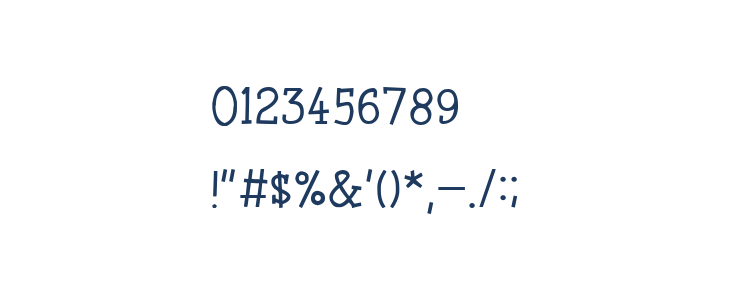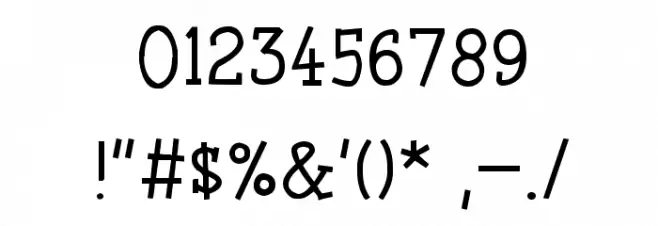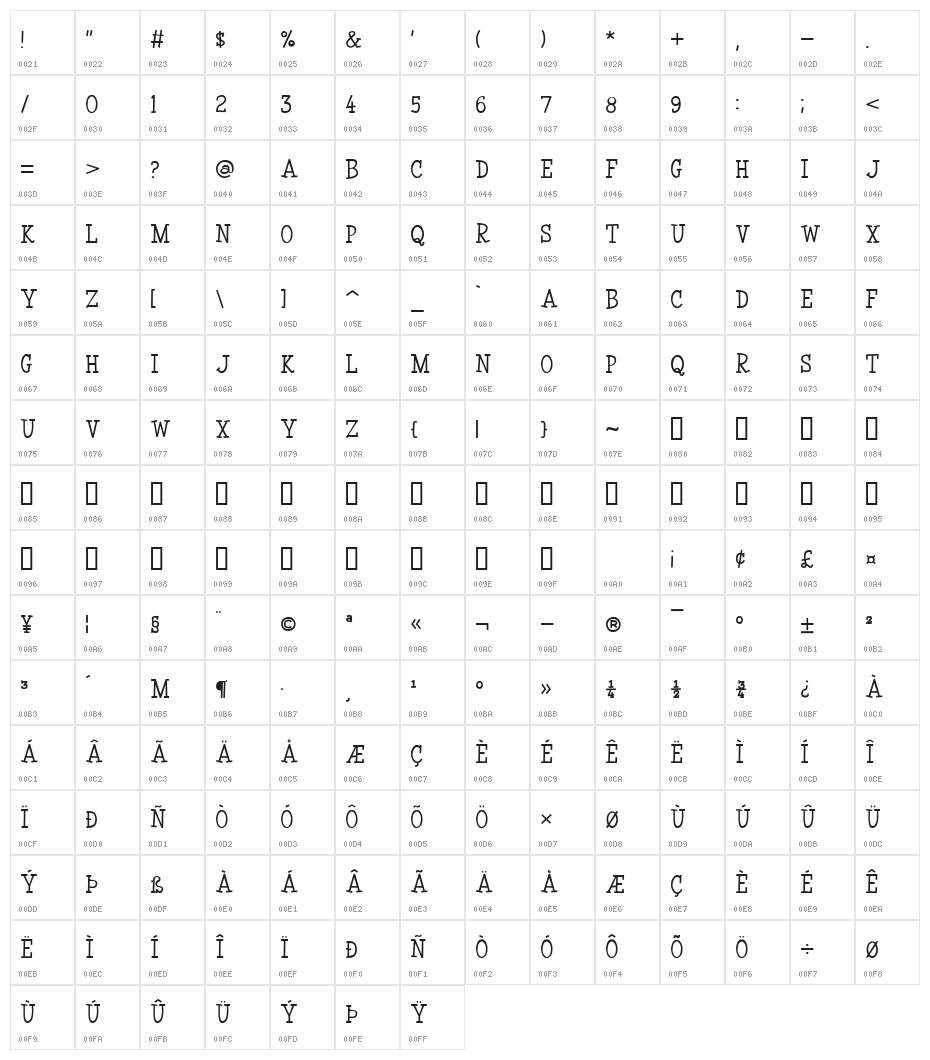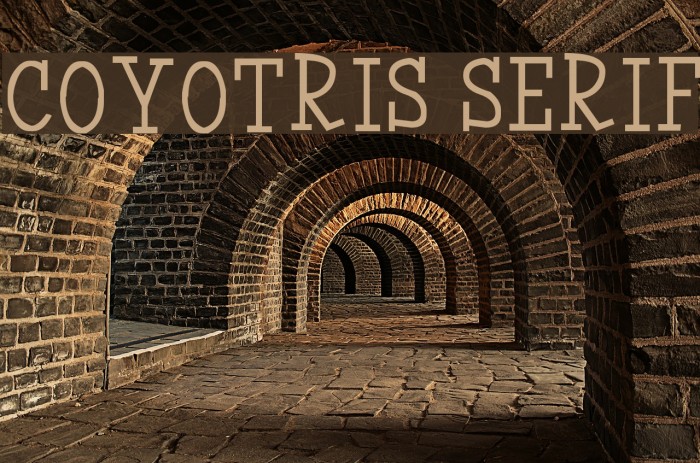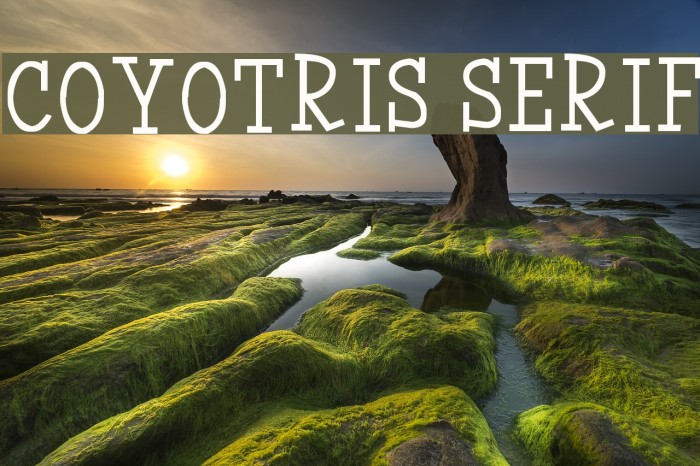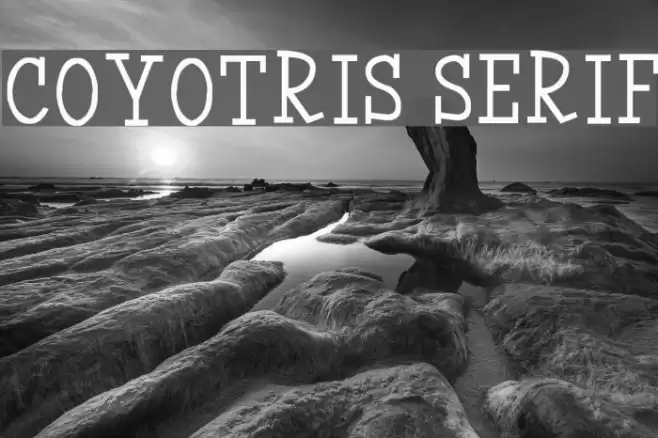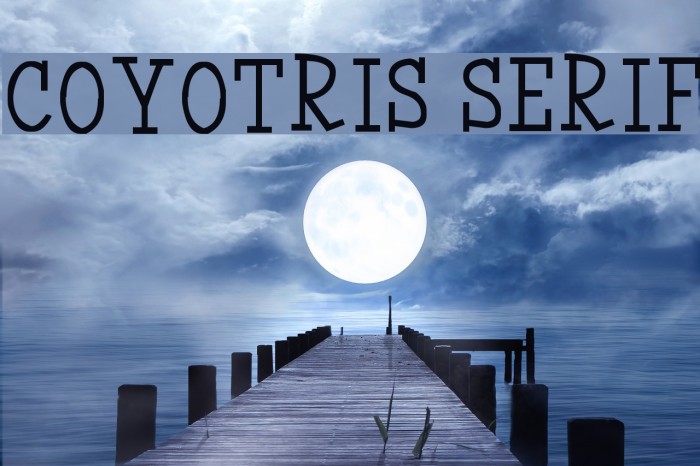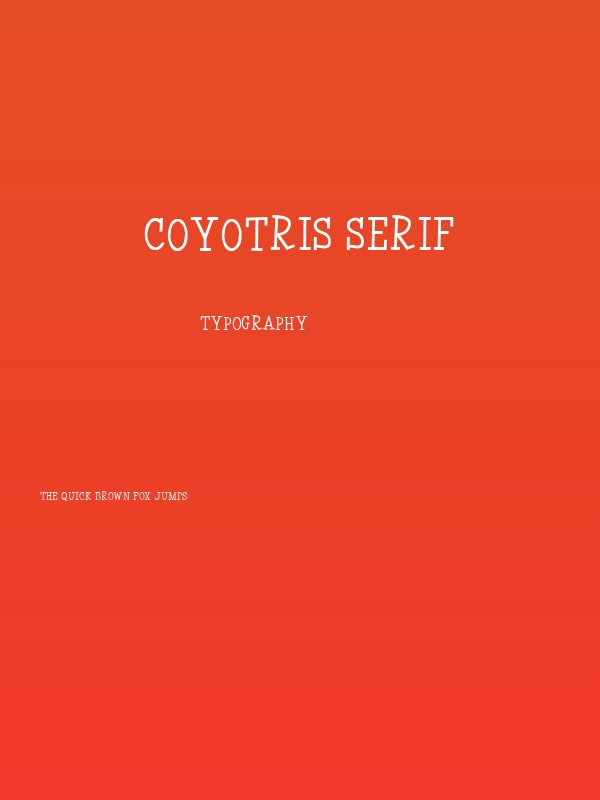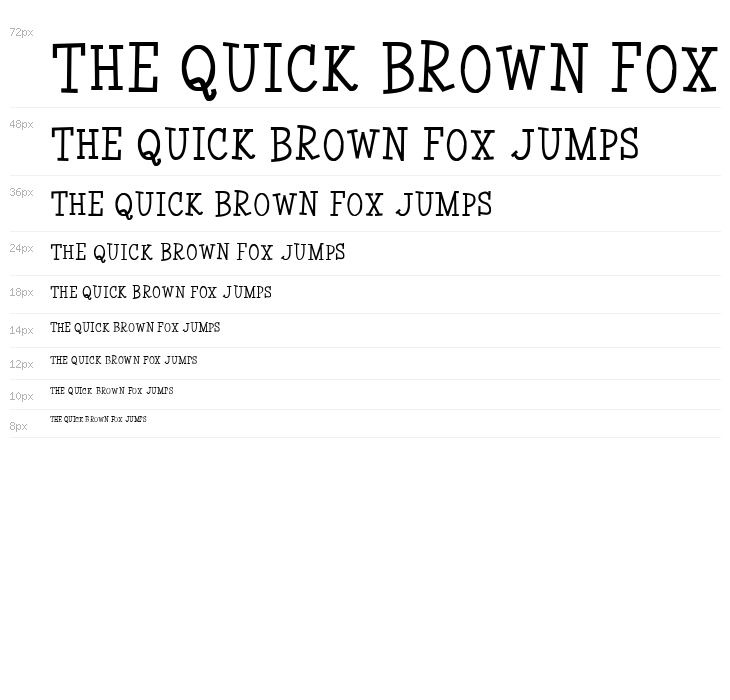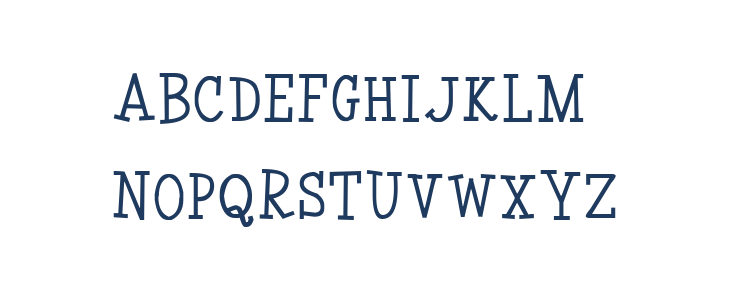
Coyotris Serif Font
Coyotris Serif Description
This font features a classic serif style with a modern twist, characterized by its slightly curved serifs and balanced proportions. The uppercase letters are bold and commanding, while the lowercase letters maintain a consistent and readable form. The numerals are clear and distinct, making them suitable for a variety of uses. Special characters are well-defined, adding versatility to the font. The overall design is both elegant and functional, making it suitable for both digital and print media.
| Proposed Projects | Ideal for editorial design, book covers, branding, and advertising materials. |